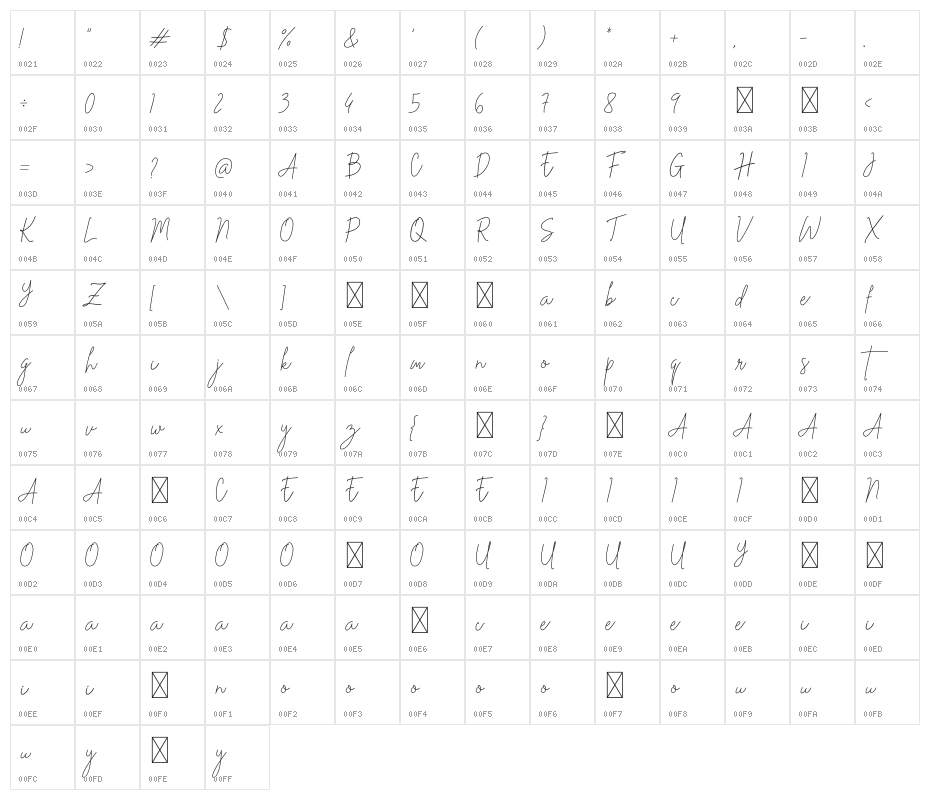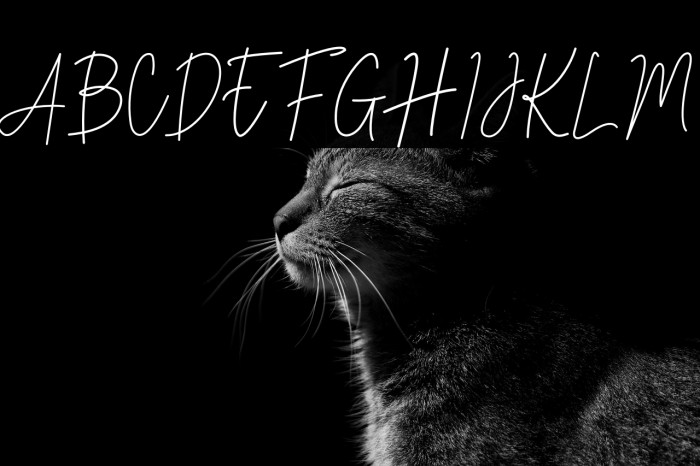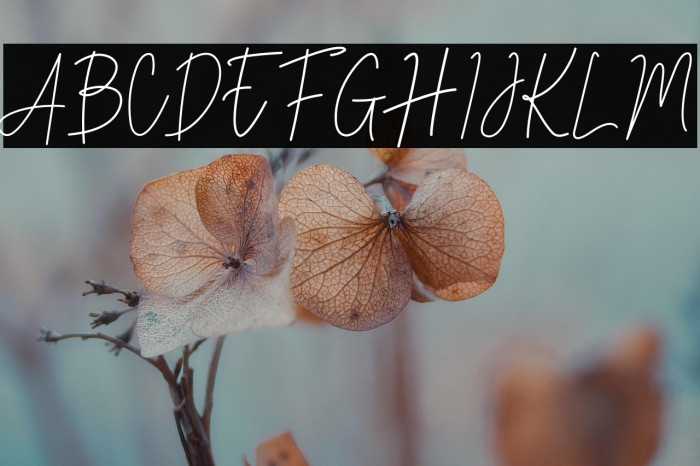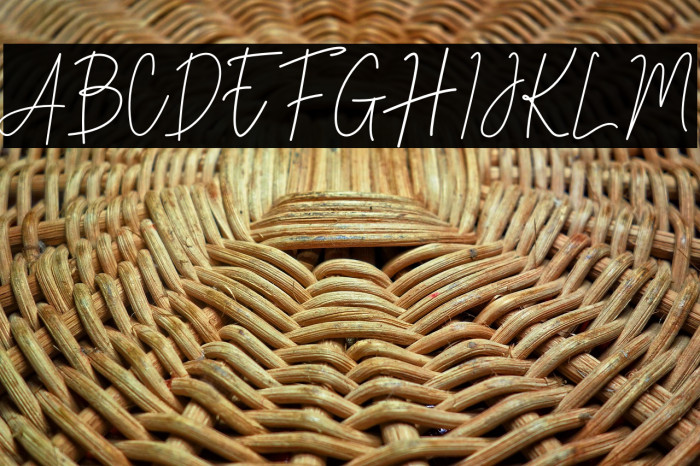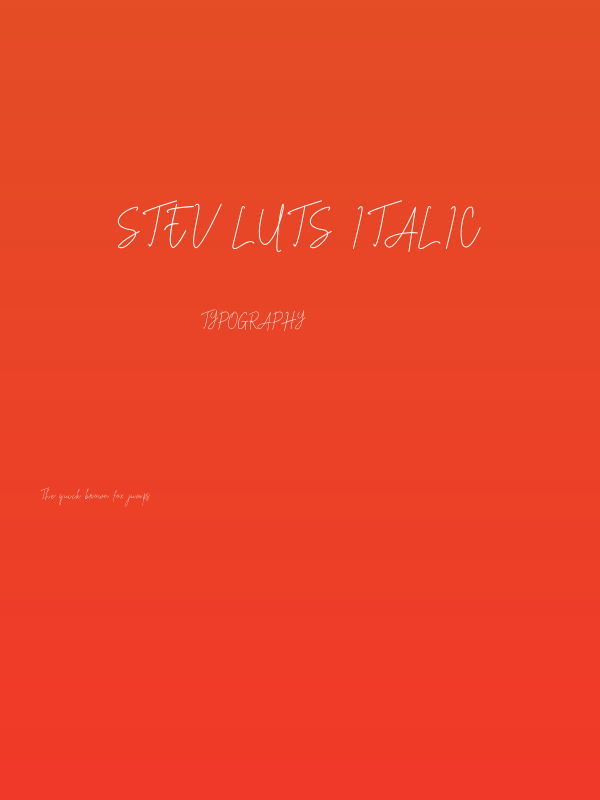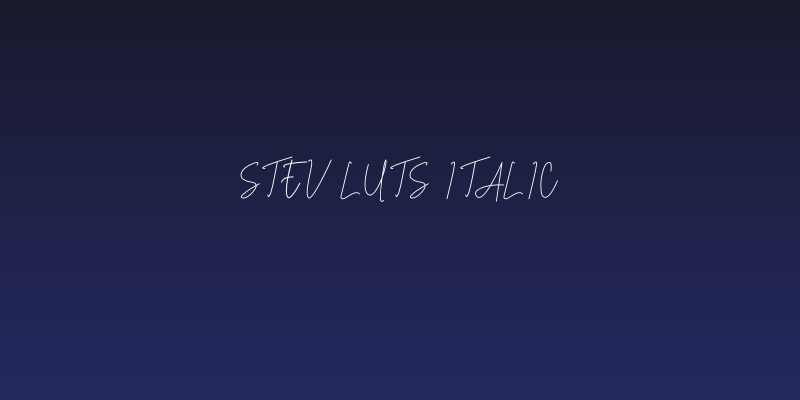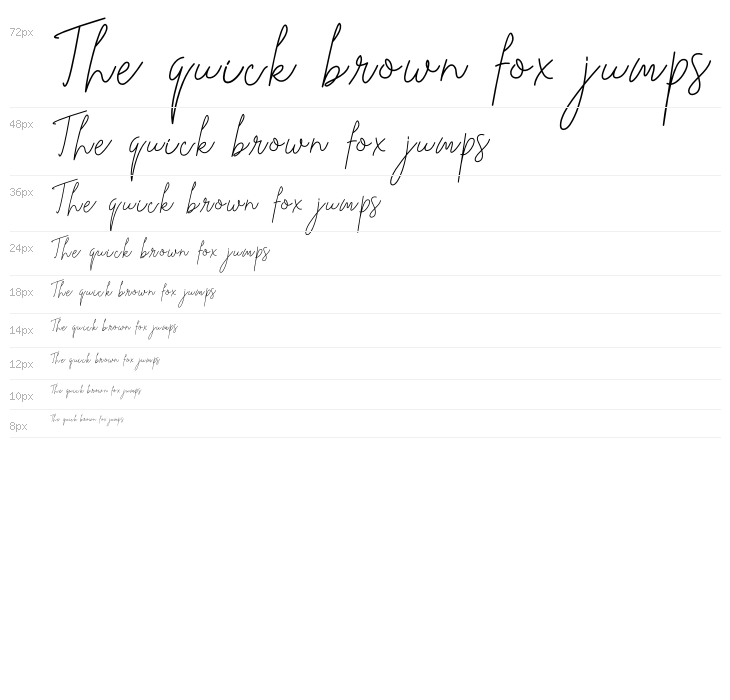
Stev Luts Italic Font
Stev Luts Italic Description
This font features a delicate, handwritten style with a flowing, cursive appearance. The characters are elegantly elongated, with a slight slant that adds a sense of movement and grace. The strokes are thin and consistent, giving it a light and airy feel. The uppercase letters are tall and narrow, while the lowercase letters maintain a consistent height, creating a harmonious balance. The numerals and special characters are designed to match the overall aesthetic, ensuring a cohesive look across all text. This font is perfect for adding a personal touch to any project, with its charming and sophisticated style.
| Overall Style | Elegant, Personal, Sophisticated |
| Use Case | Invitations, Personal notes, Branding |
| Proposed Projects | Ideal for wedding invitations, personal branding, greeting cards, and elegant stationery. |